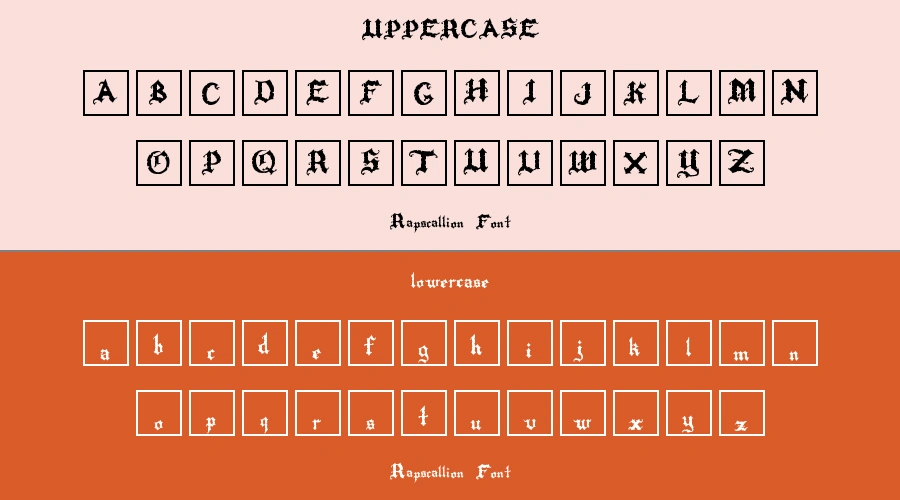
About Rapscallion Font
When typographic excellence matters most, Rapscallion Font delivers through its thoughtful blend of balanced tension and message hierarchy. Specially crafted for brand identities, it offers the flexibility and creative impact required for sophisticated design work. Every detail serves a purpose.
The character set showcases thoughtful details like rectangular counters alongside functional technical characters. This proves especially valuable in display applications, where output consistency directly influences results. Particular attention was paid to bowl width and cultural resonance during development.
Rapscallion Font |